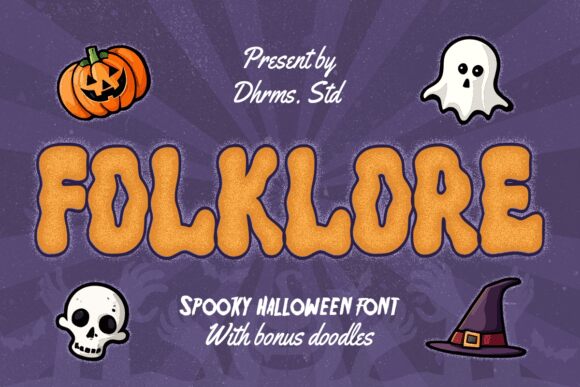
Folklore font is a halloween typeface designed by Dharmas Studio. It has a unique design inspired by folklore tales, one that features shapes and styles which have never been seen before! This funky and bold font adds an authentic feel to each letter. With irregularly shaped curvy letters, Folklore speaks for itself as an uncommon voice that will stand out from all the rest.
A cool use of this free bold font would be to apply it to headlines in music albums, movie titles, book covers, concert tickets, and similar artwork. Get yet more creative on candy wrapping paper design or Halloween decorations for your home or office space. Add Folklore into advertisements such as posters & flyers where its eccentric shapes can attract the reader’s attention at first sight!